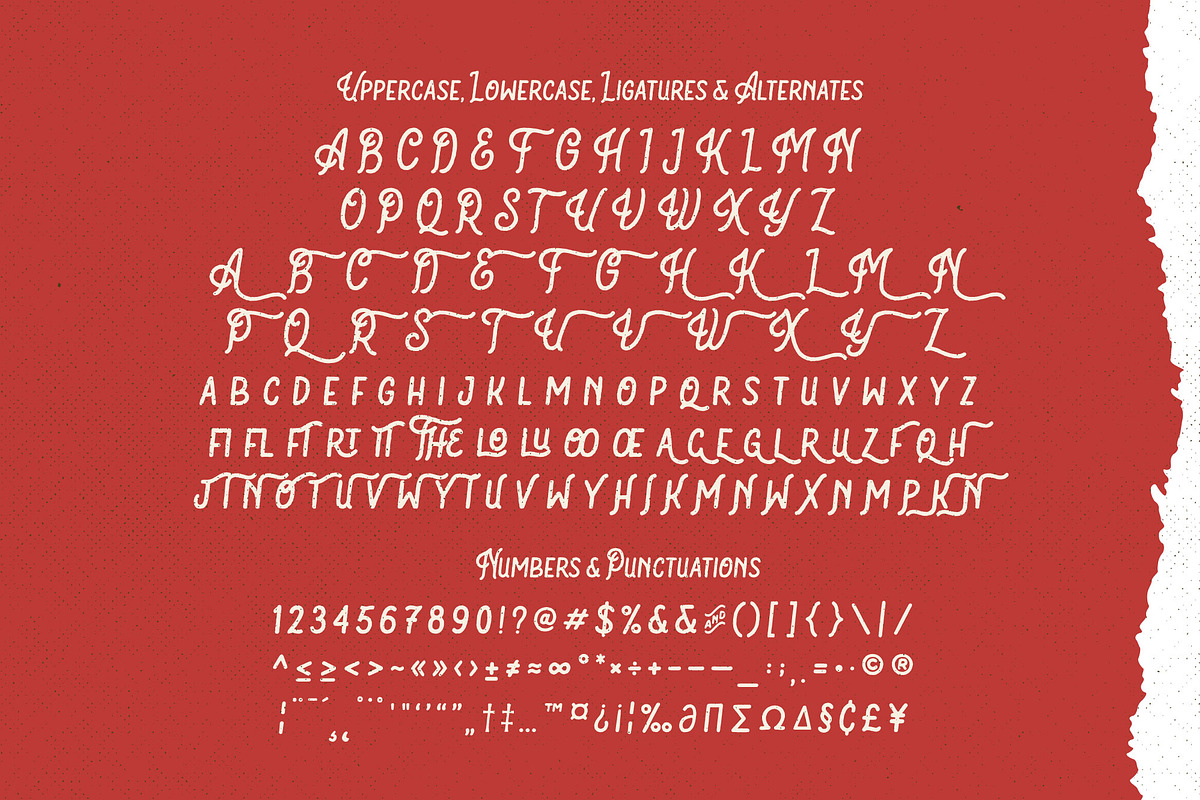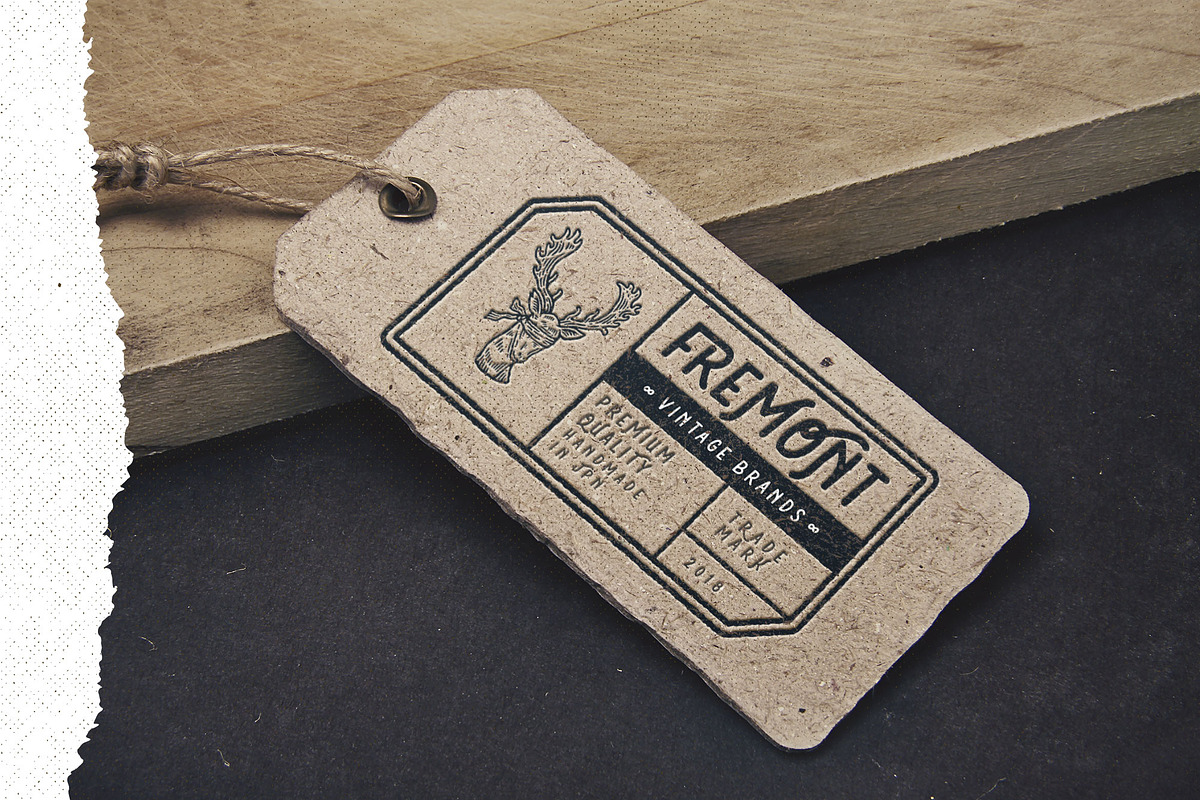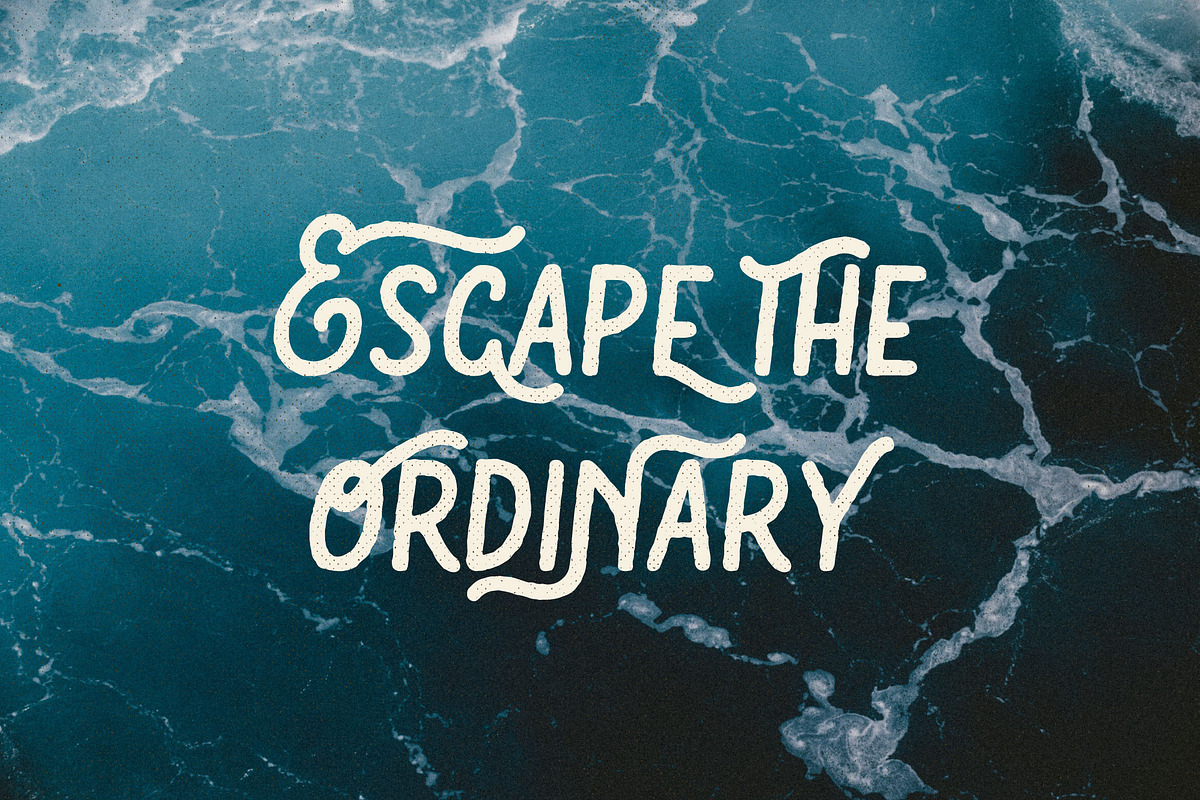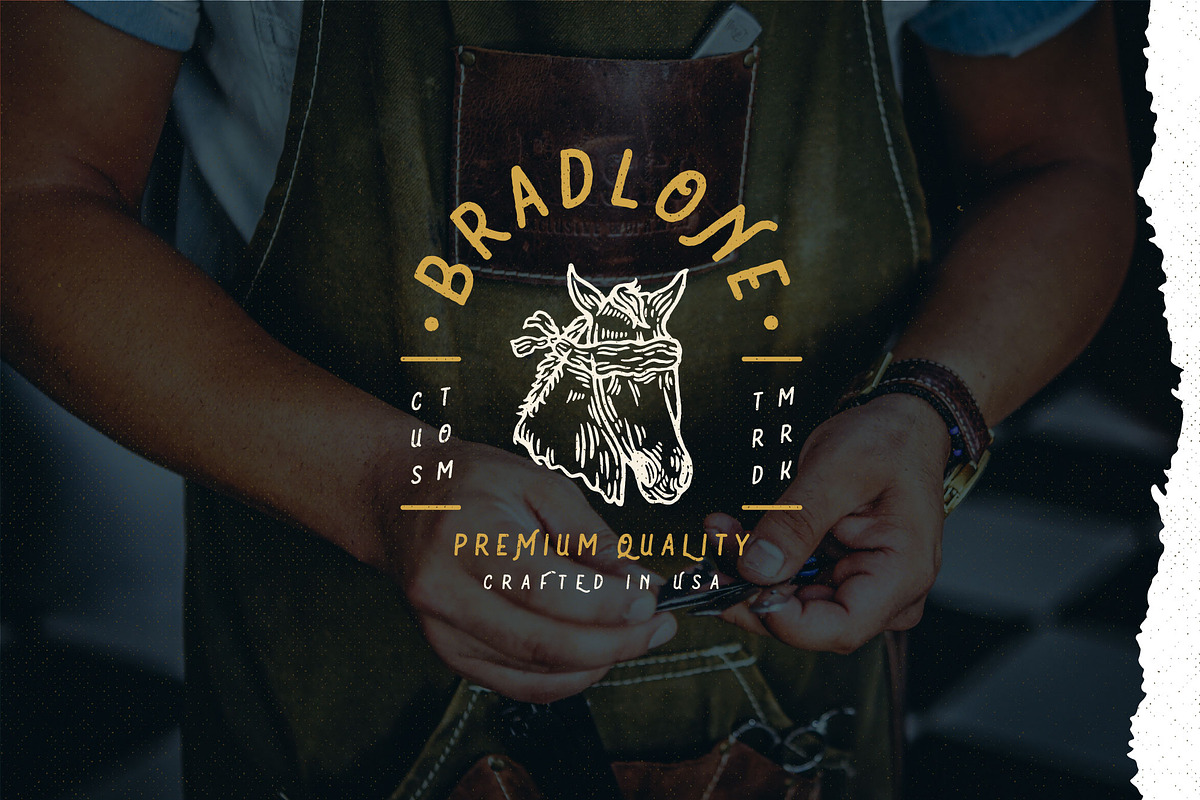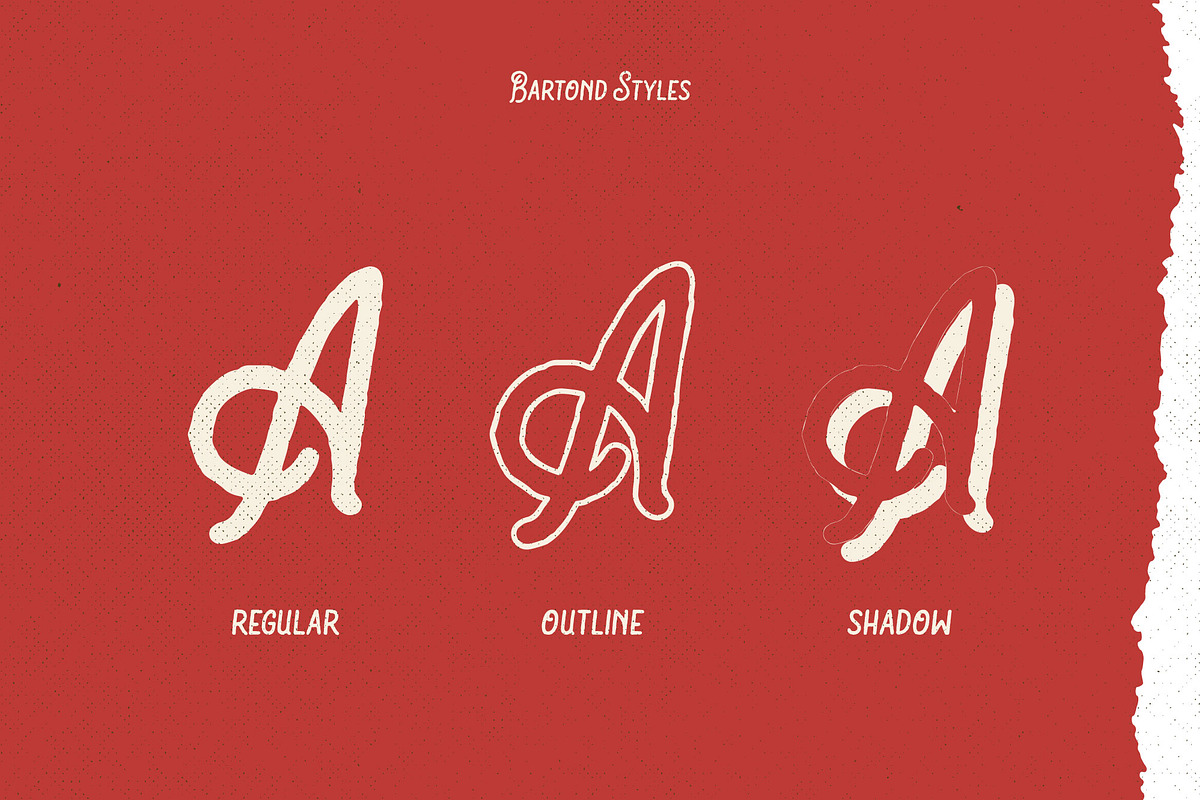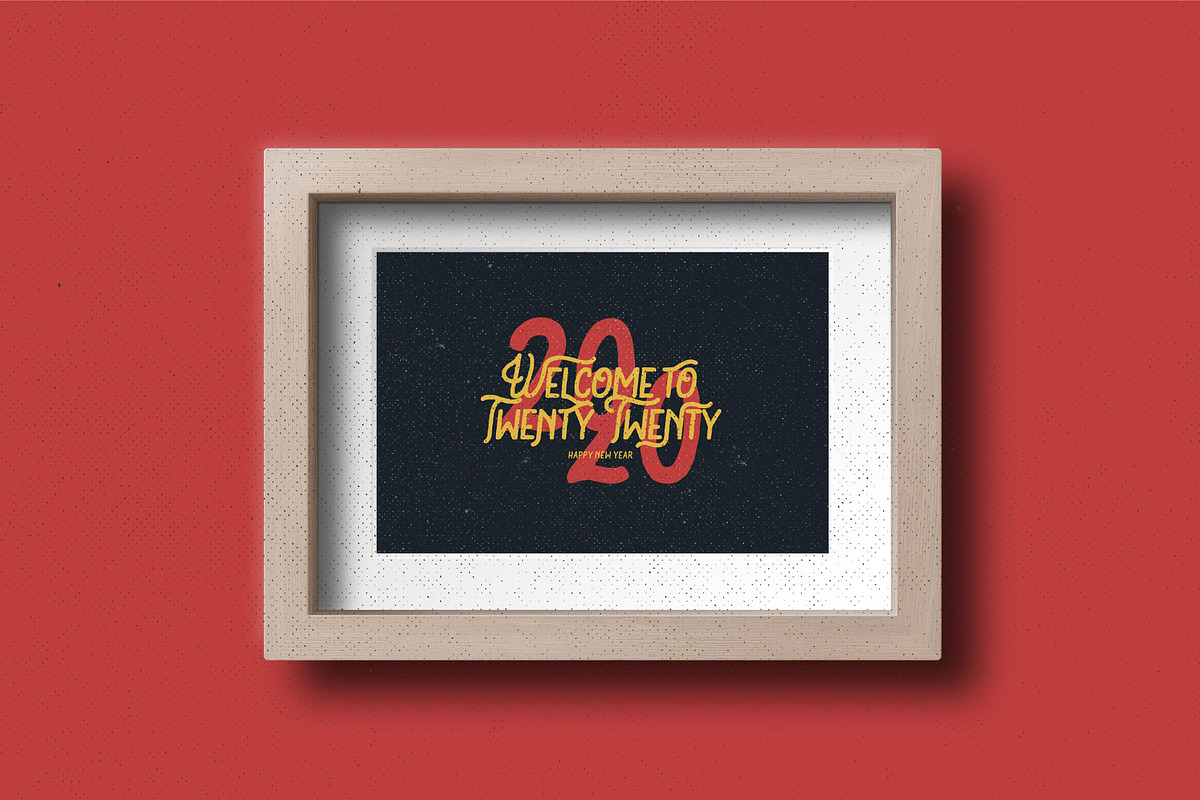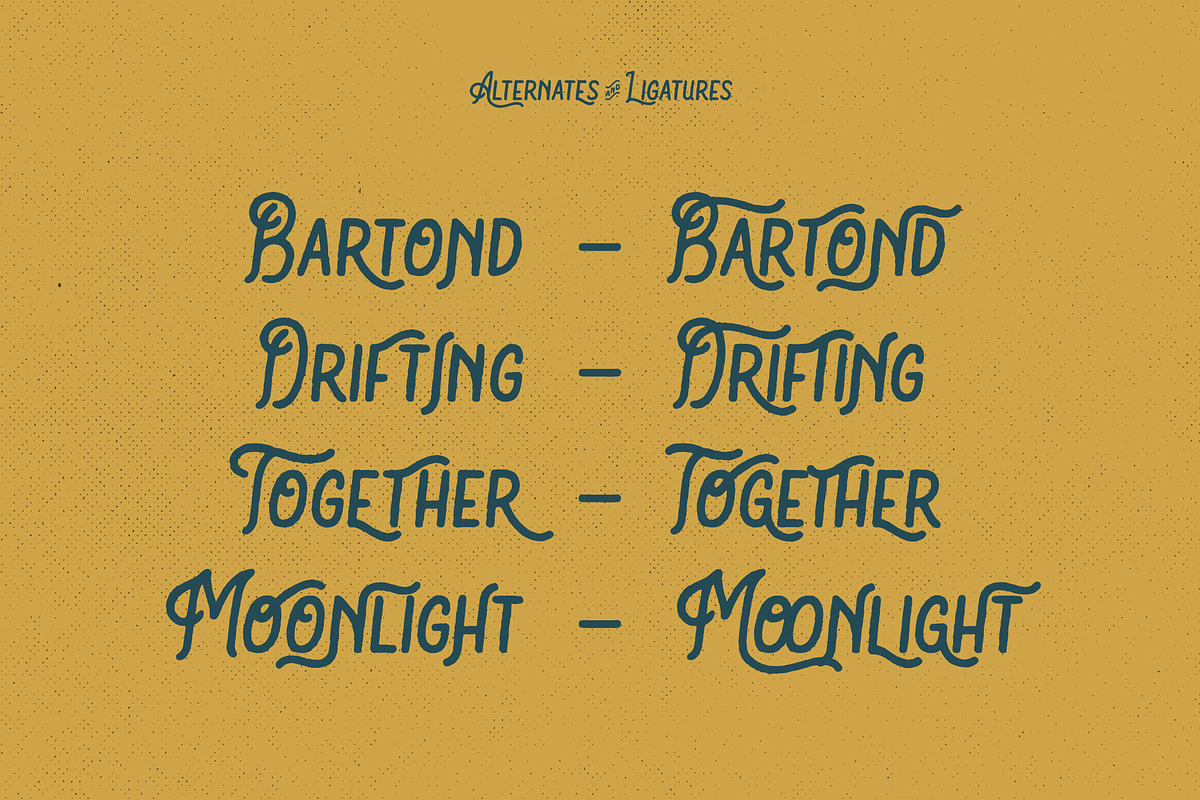
Tacikworks presents the new Vintage Font Family. Bartond typeface font is inspired by vintage designs with rough lines. Make the classic impression of this font stand out more. This font has approximately 219 glyph characters including uppercase, lowercase, discretionary ligatures and standard ligatures alternatives. It is suitable for creating vintage designs such as logo posters, merchandise, clothing, brochures, business cards and others.
- Punctuations
- Alternates
- Bartond Typeface Regular
- Bartond Typeface Outline
- Bartond Typeface Shadow